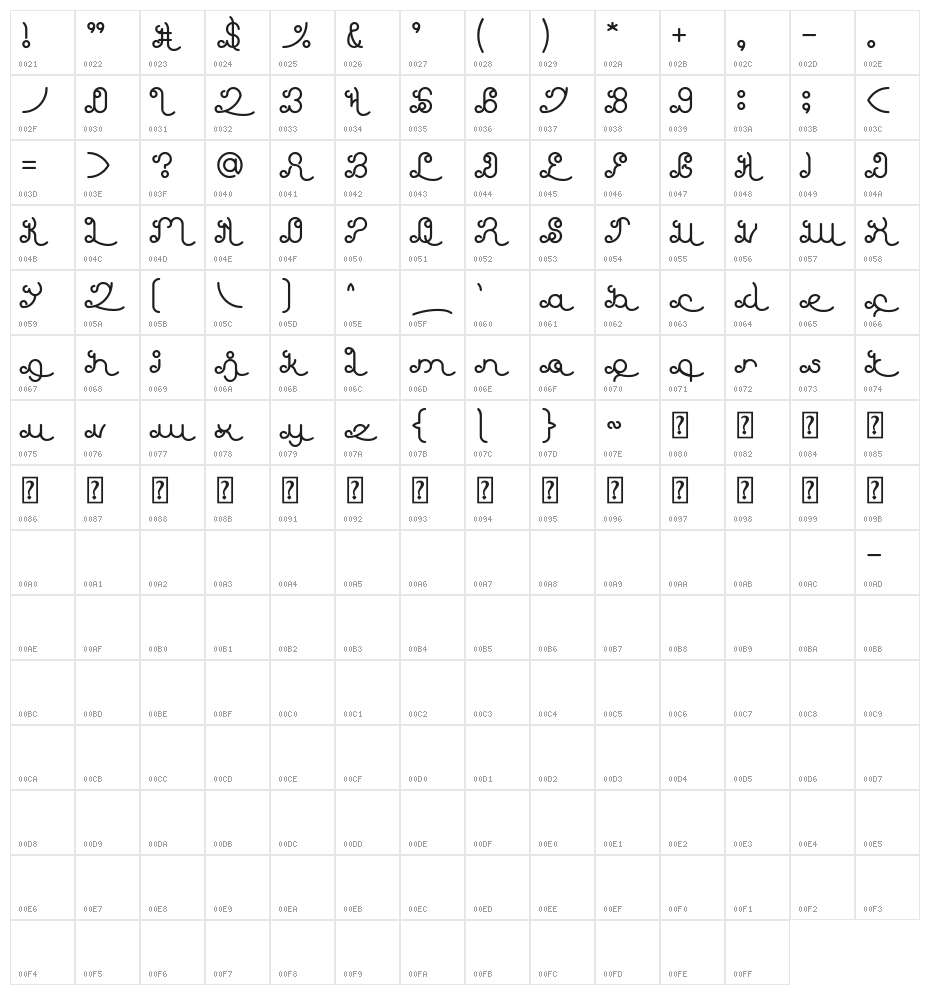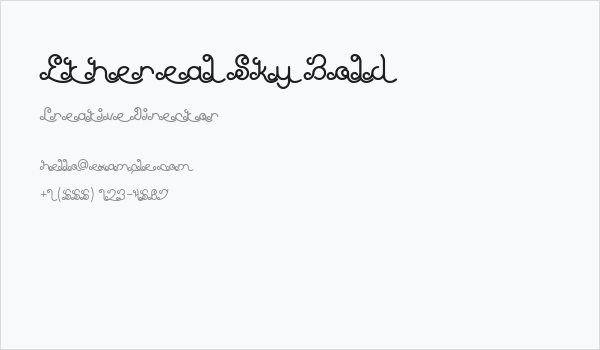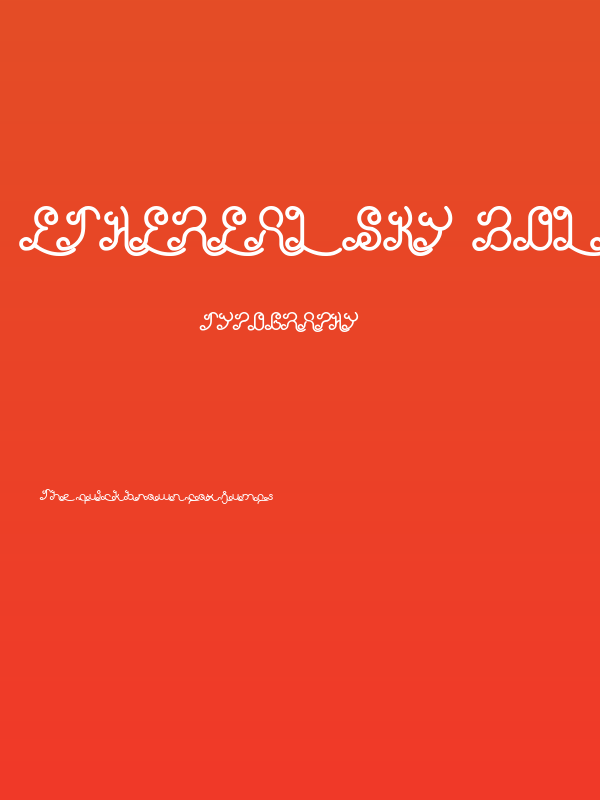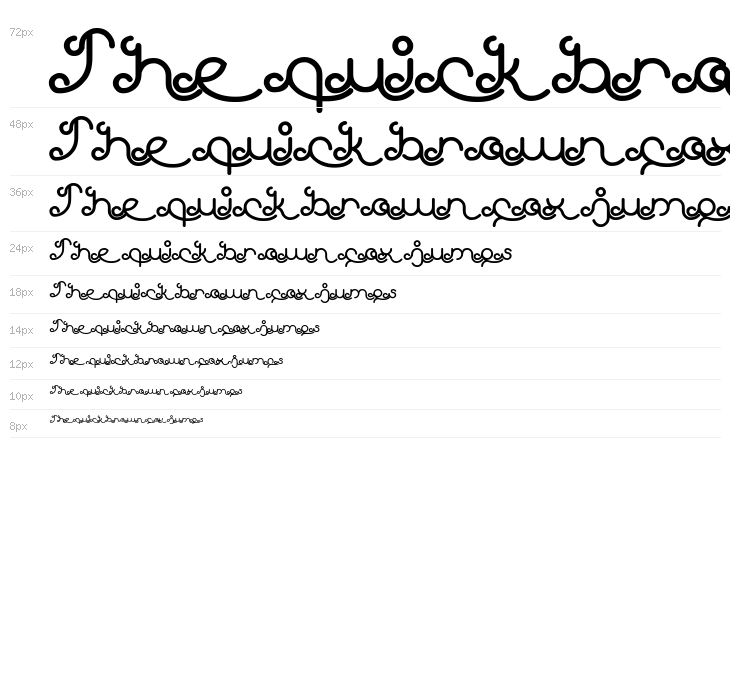
Ethereal Sky Bold Font
Ethereal Sky Bold Description
This font features an intricate and whimsical design, characterized by its flowing, interconnected strokes that create a sense of movement and elegance. The letters are adorned with loops and curls, giving them a decorative and artistic flair. The overall appearance is both playful and sophisticated, making it suitable for creative and expressive projects. The font maintains a consistent stroke weight throughout, ensuring readability despite its ornate style. Its unique design elements make it stand out, adding a touch of creativity and charm to any text.
| Use Case | Headlines, Logos, Artistic projects |
| Proposed Projects | Ideal for invitations, greeting cards, artistic posters, and branding that requires a creative touch. |